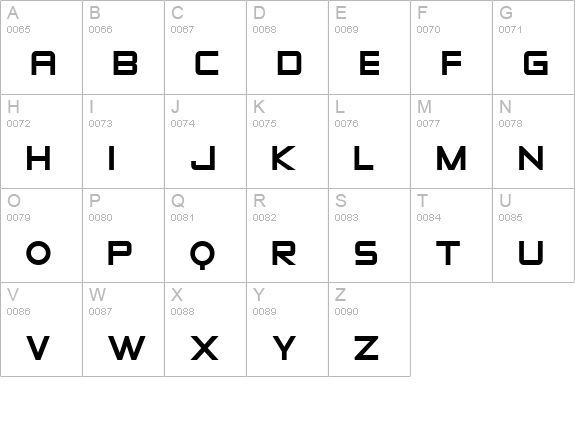
STOMP_Zeroes font is a modern and edgy typeface that exudes a sense of boldness and creativity. Its sharp angles and geometric shapes give it a futuristic and dynamic look, making it perfect for projects that require a strong visual impact. The font is versatile and can be used for a wide range of design applications, from posters and logos to branding and web design. The best part about STOMP_Zeroes font is that it is available for free download at FontsMarket.com. This means you can easily access this unique and eye-catching font without any cost, allowing you to enhance your design projects without breaking the bank. Don't miss out on the opportunity to add STOMP_Zeroes font to your font collection today!